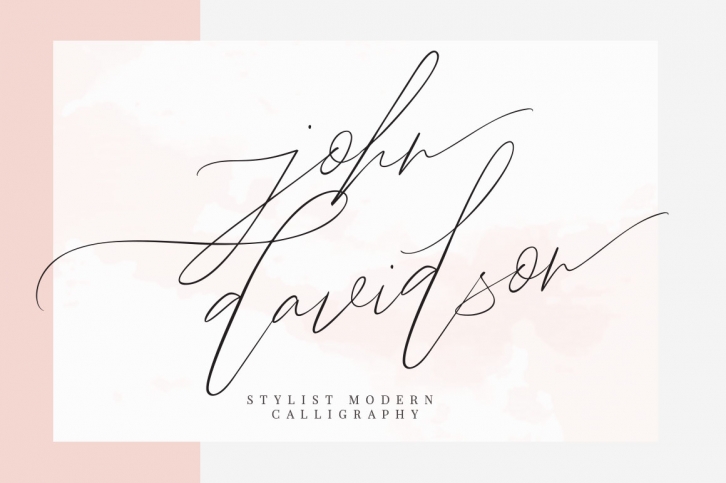
John Davidson is a beautiful font that was designed by Putra Khan. It's a great choice for designers and creatives who need such a font. It was released on February 10, 2019 and the file size is 9.16 MB. John Davidson may give a more youthful, expressive and casual look to your project. It is a very beautiful, refined, elegant, and high-quality font.